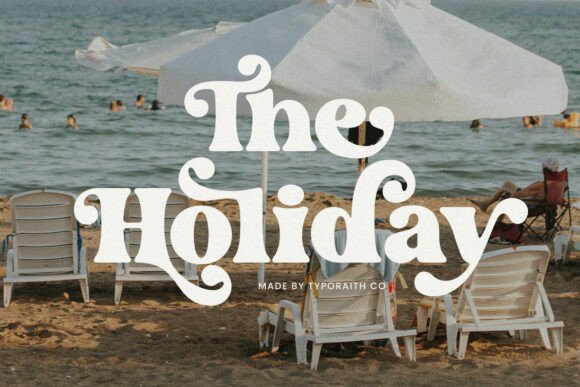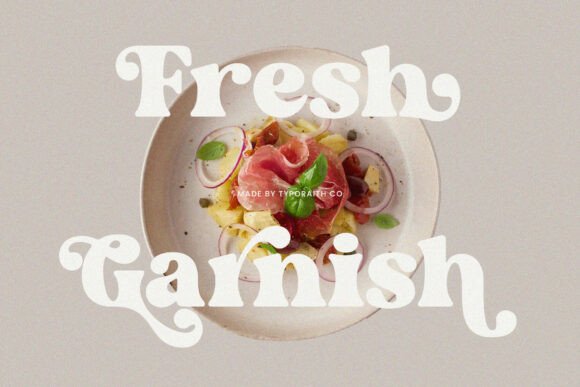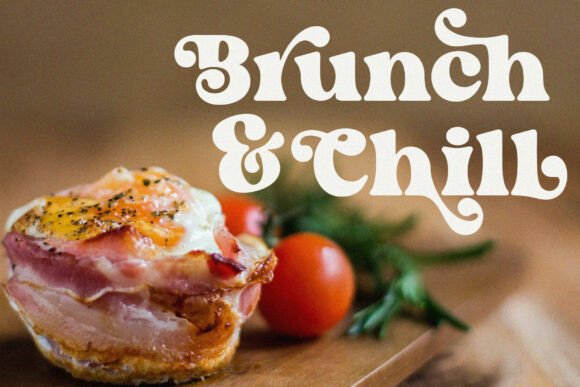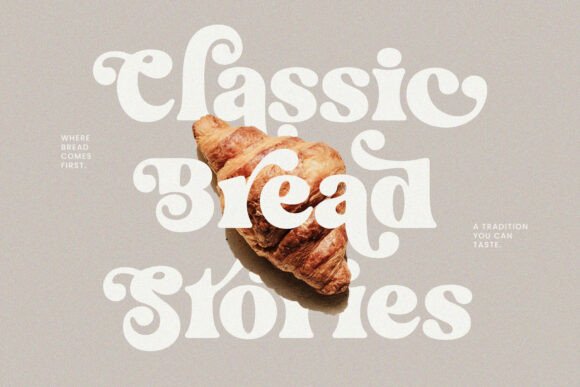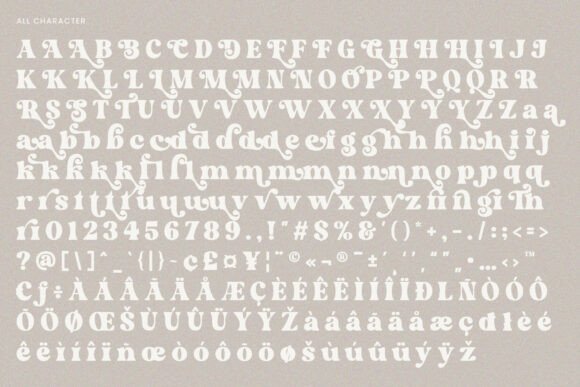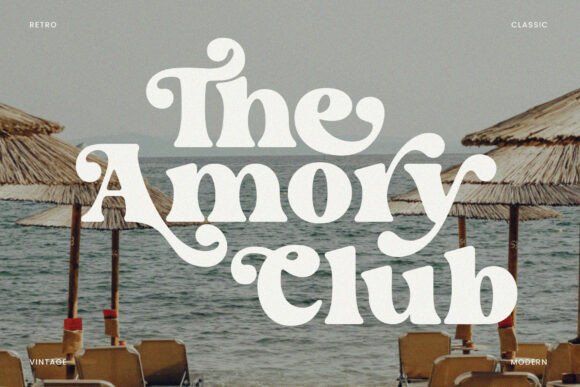
Unleashing the Magic of Display Typography
As designers, we’ve all been there – staring at a blank canvas, searching for the perfect font to capture the essence of our creative project. It’s that moment when the right typography can elevate your design from good to great. For me, that moment came when I discovered the Magic Display Font – a modern retro serif typeface that perfectly balances vintage charm with modern usability.
With its bold shapes, smooth curves, and playful terminals, Magic Display Font is a game-changer for designers looking to add a touch of elegance and character to their designs. Whether you’re working on a branding project, creating a poster, or designing packaging, this versatile font is sure to make your visual project stand out.
Key Features of Magic Display Font
• Unique Display Font Design: The Magic Display Font is designed specifically for creative projects, offering a high-quality, visually appealing font that can elevate any design.
• Transparent Background: This font features a transparent background, making it easy to overlay on images or videos without any distracting background elements.
• Multi-Language Support: The font supports a wide range of languages, making it a versatile design resource for global creative projects.
• Perfect for Digital Displays: The Magic Display Font is specifically designed for use on digital displays, such as LED screens, billboards, and video walls, making it an excellent choice for events, exhibitions, and advertising campaigns.
Honest Review: Magic Display Font
As a designer, I’ve had the chance to work with various fonts, and I must say, the Magic Display Font is a gem. It’s a high-quality font that’s perfect for any creative project, especially those that require a touch of magic. ✨
One of the standout features of this font is its versatility. It can be used for both digital and print projects, making it a valuable design resource. Plus, the transparent background option allows for endless customization possibilities.
Here are some of the key features that I love about Magic Display Font:
• High-quality design that’s perfect for creative projects
• Transparent background option for seamless customization
While Magic Display Font is an excellent choice, there are a few limitations to consider:
• It may not be suitable for very large or complex projects
Overall, I’m thoroughly impressed with Magic Display Font. It’s a high-quality design resource that’s perfect for any creative project. With its versatility, customization options, and free download, it’s a must-have for any designer’s toolkit. ✨
Designing with Magic Display Font
The Magic Display Font is a high-quality, versatile design resource perfect for creative projects. Its transparent background makes it ideal for overlaying text onto images or videos.
Tips for Getting the Most Out of Magic Display Font
To maximize the impact of your design, consider the following tips:
• Use the Magic Display Font in conjunction with a bold, eye-catching background.
• Experiment with different font sizes and styles to create visual interest.
• Combine the Magic Display Font with other design elements, such as graphics or images, to create a cohesive look.
Common Use Cases for Magic Display Font
The Magic Display Font is ideal for:
• Creating attention-grabbing headlines and titles.
• Designing engaging social media graphics.
• Developing high-quality presentations and reports.
Can I customize the Magic Display Font to fit my specific design needs?
Yes, the Magic Display Font is fully editable, and you can customize it to fit your specific design needs. You can change the color, size, and style of the font to match your project’s aesthetic. Additionally, you can also use the font’s transparent background to create a unique layered effect.